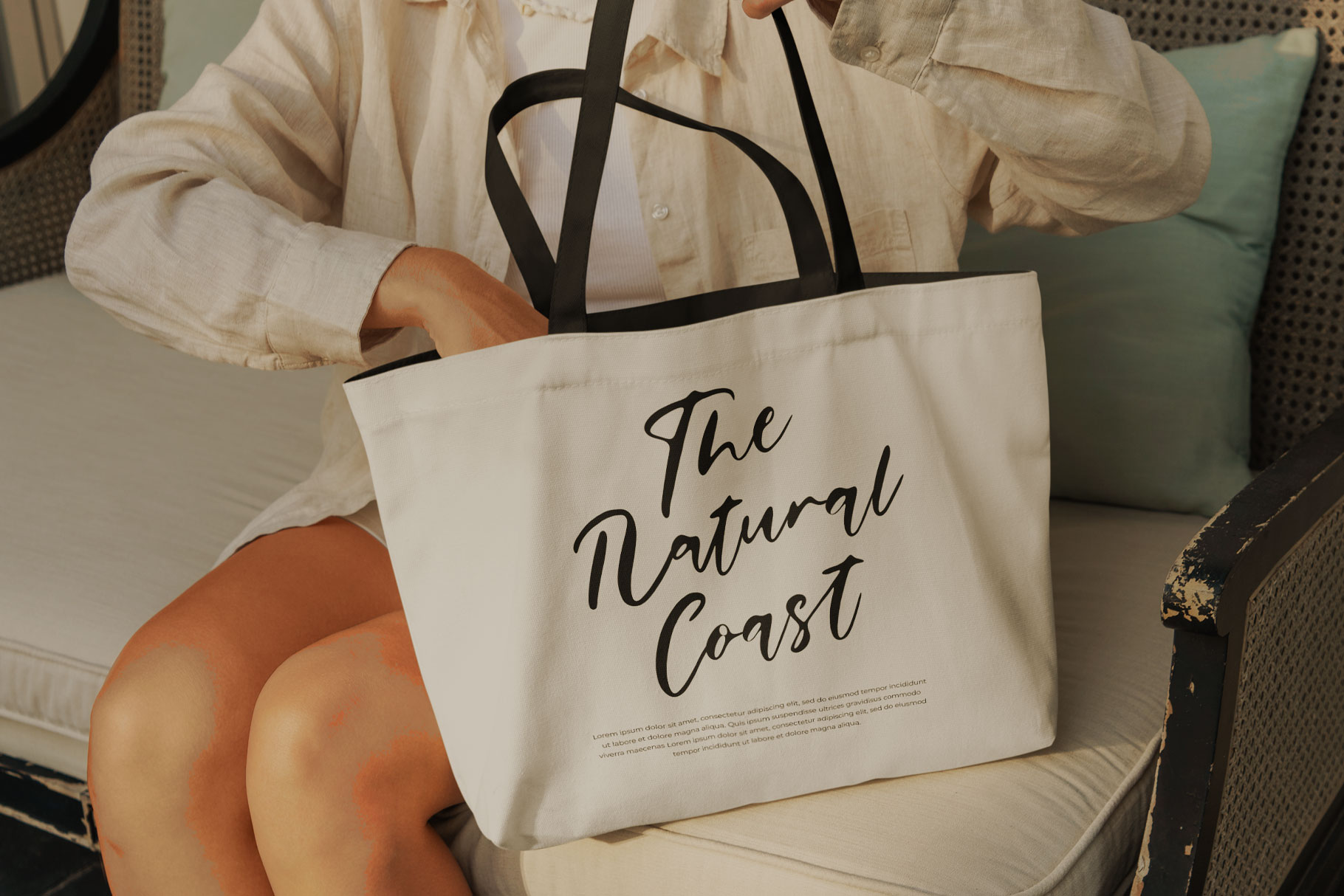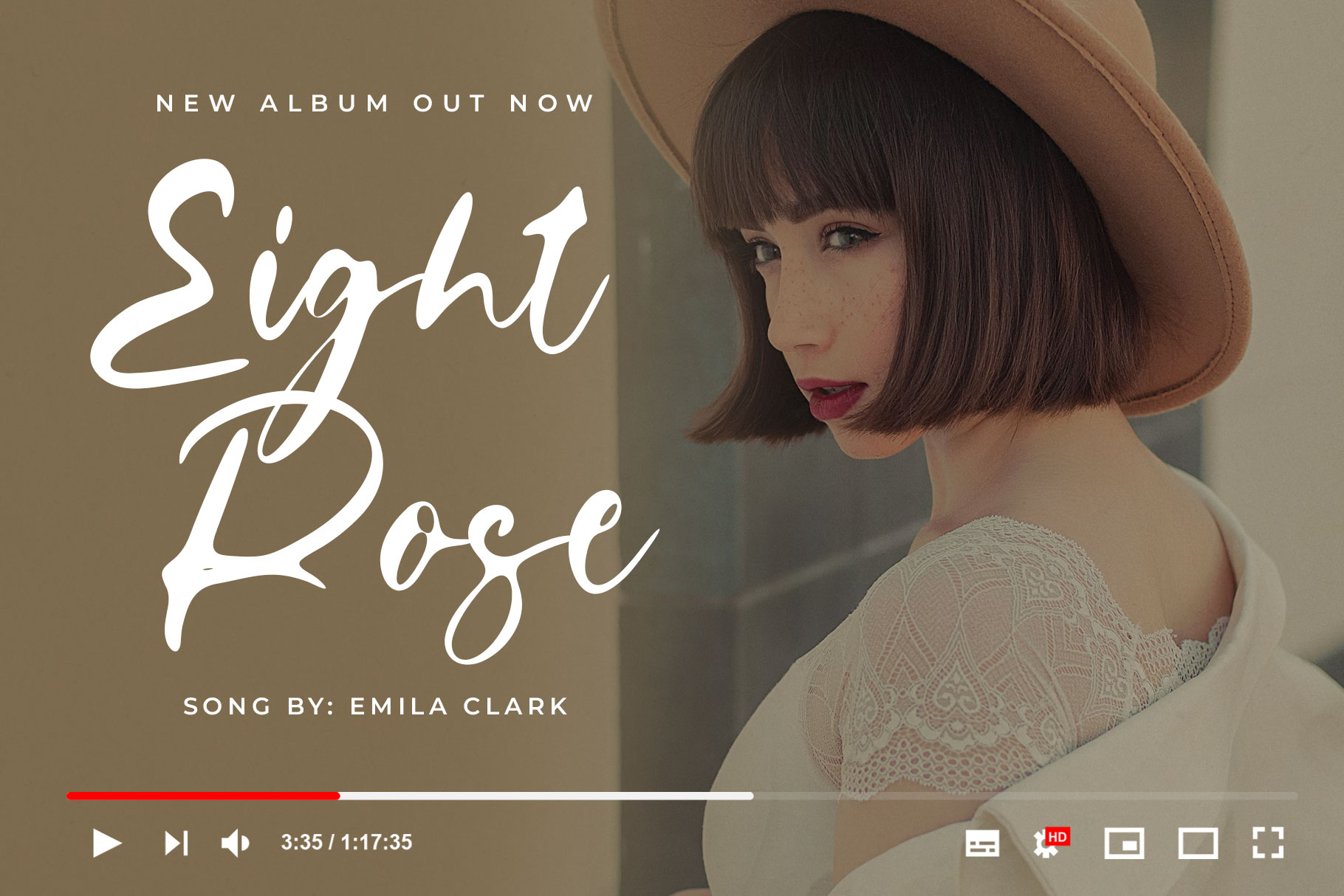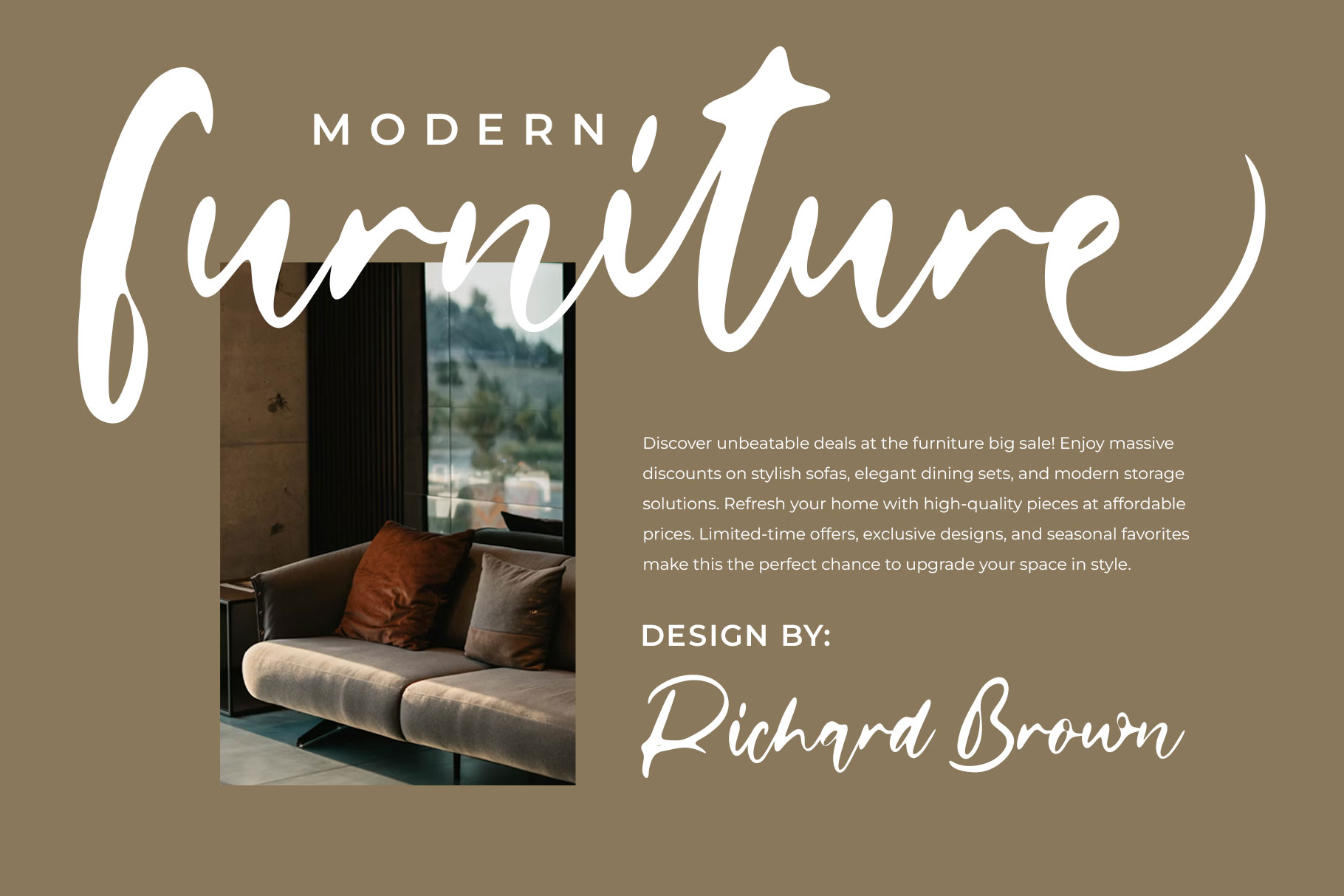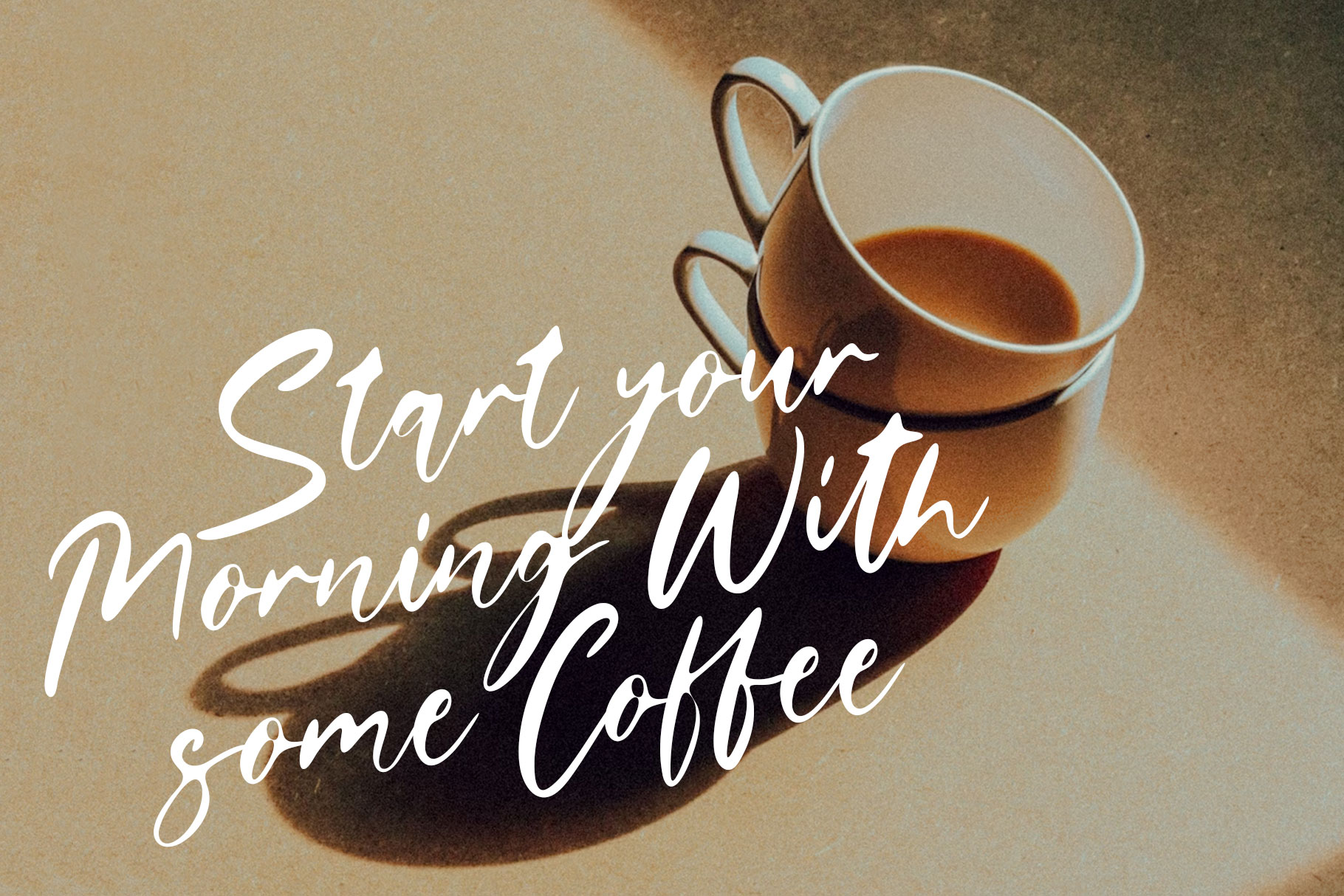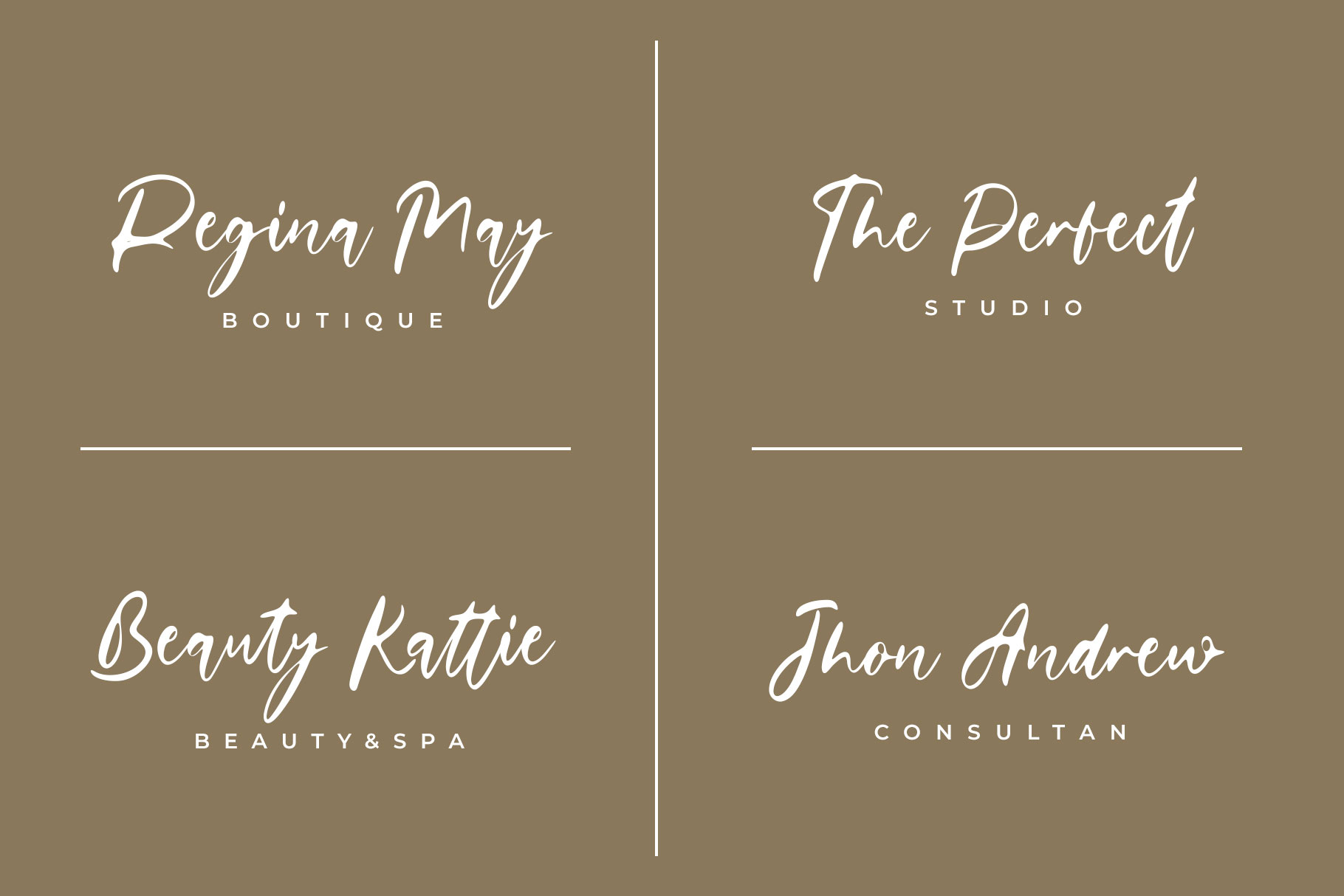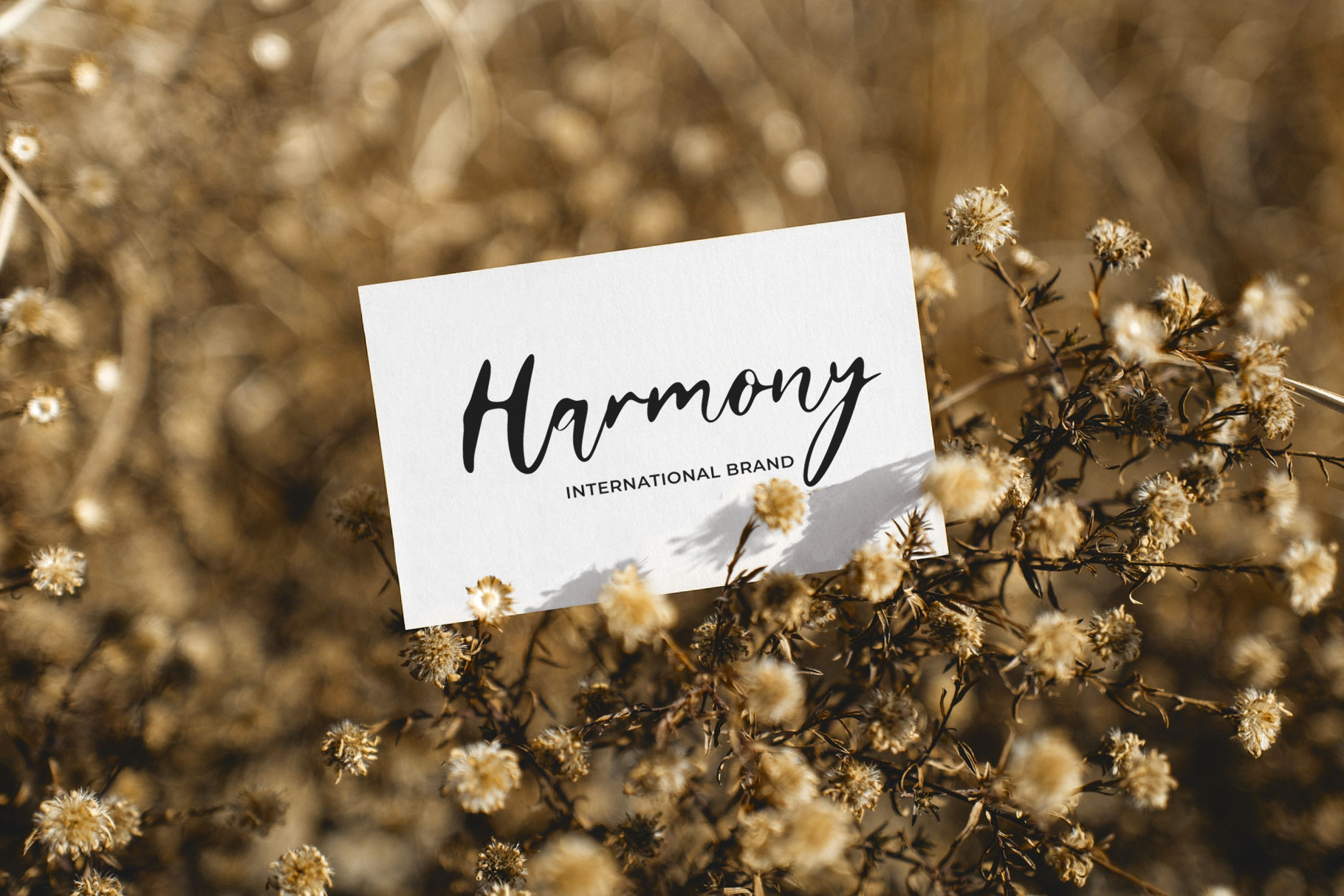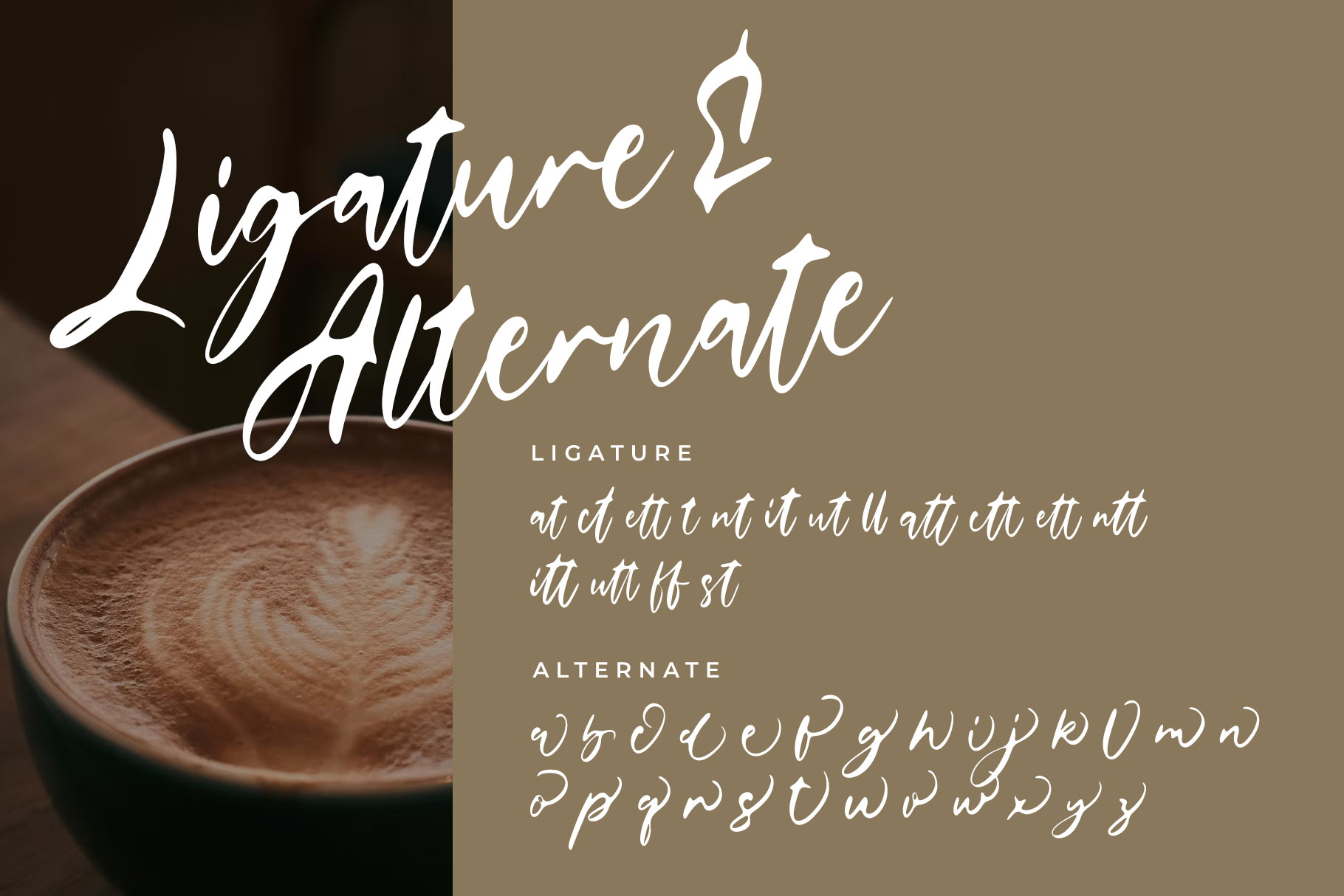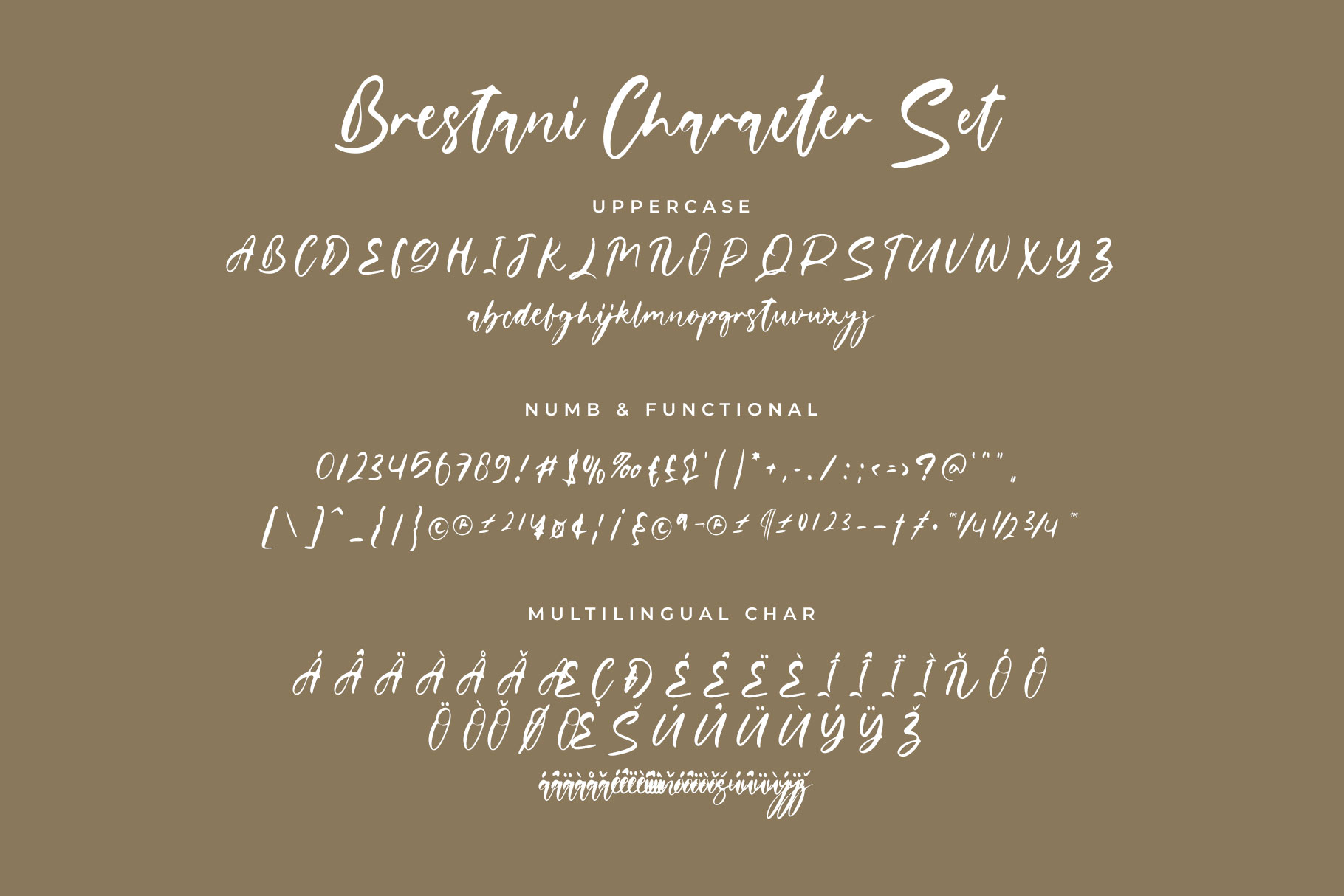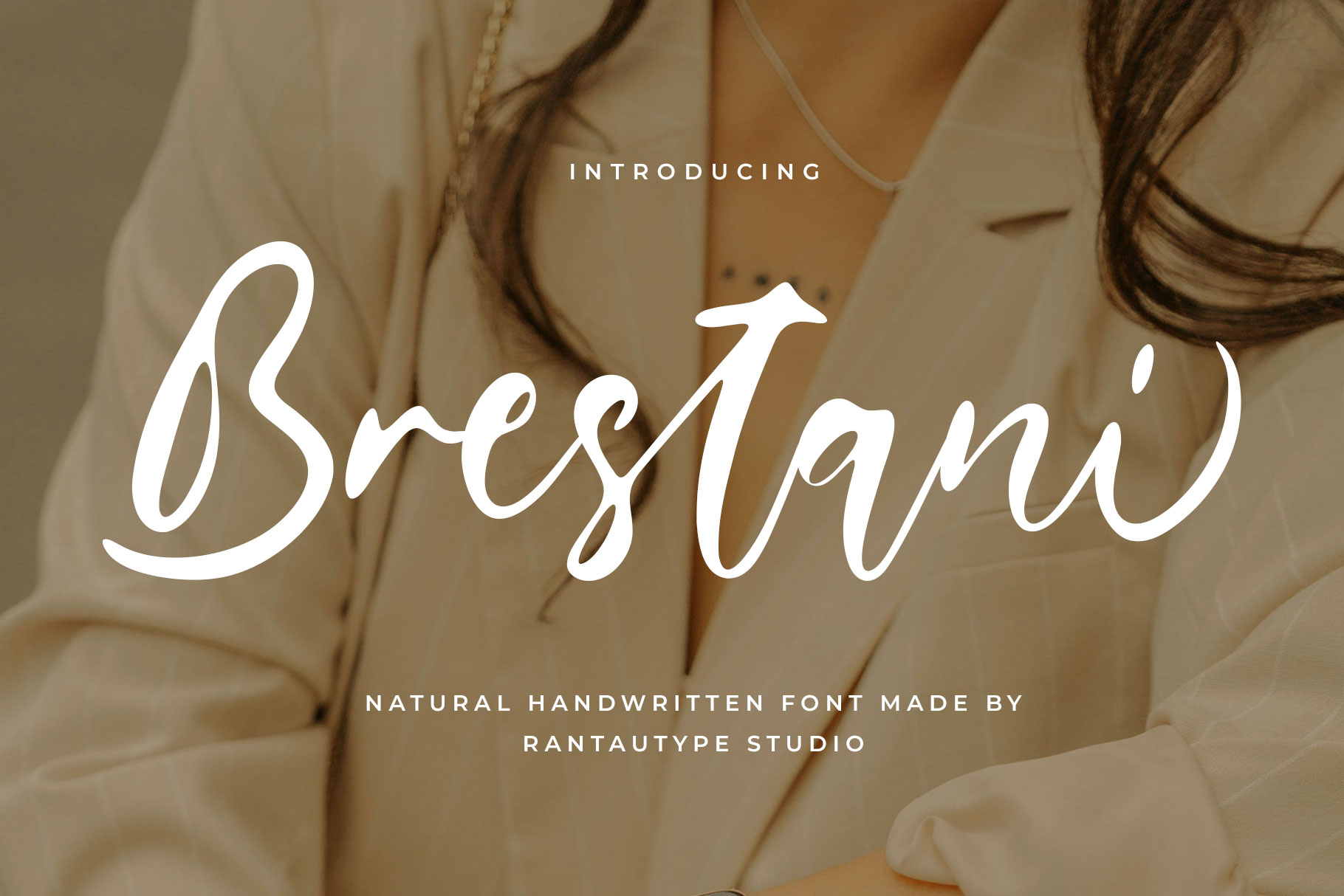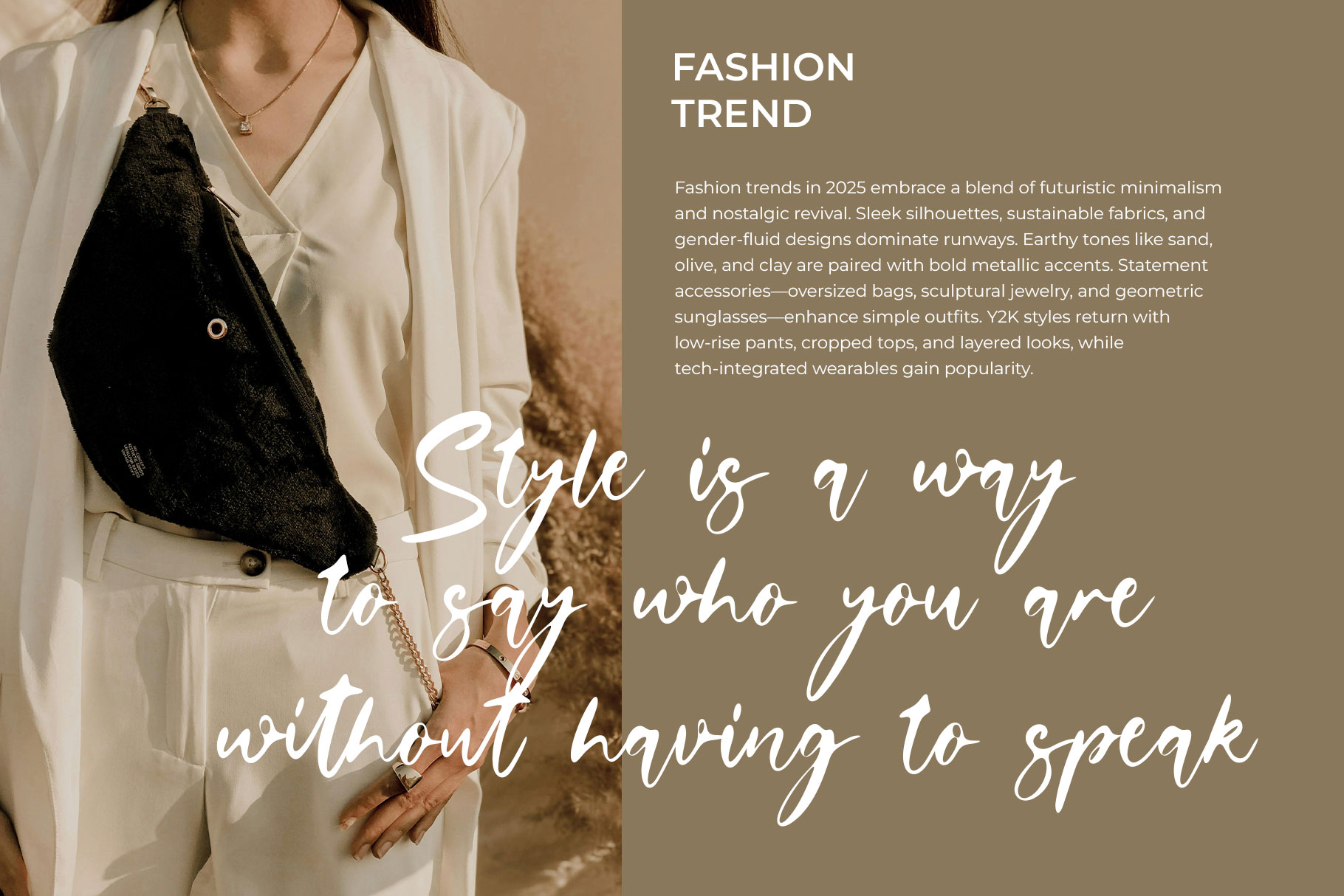
Brestani Natural Handwritten Font
Brestani is natural handwritten font with authentic curve and shape. Brestani is a perfectly choice for any creative endeavor, creating, modern, lifestyle design such as logotype, title, cover, branding, invitations, wedding designs, display and magazine, social media posts, advertisements, printed quotes, product packaging, corporate brand, product designs, labels, photography, watermarks, special events and any other project with handwritten feel.